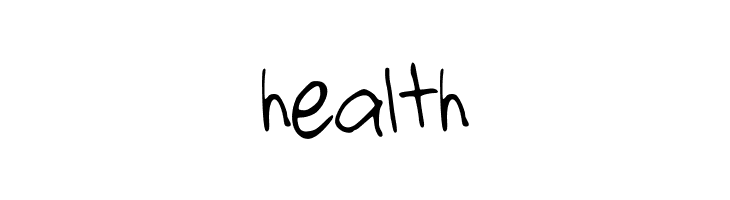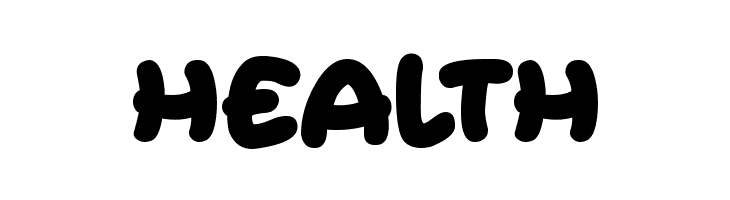
A bold, whimsical font with bee illustrations atop each character.
A playful set of dingbat symbols themed around scrapbooking and crafting tools.
( Austie Bost Fonts - Austin Owens - austiebost.com )
A decorative font with playful Christmas-themed doodles.
( Bailey Pink )
A playful, handwritten font with a casual and whimsical style.
( Cat Neligan )
A festive, decorative font featuring Christmas-themed elements within each character.
( Chequered Ink - chequered.ink/ )
A playful, hand-drawn font with rounded edges and a whimsical style.
( Darrell Flood )
A bold, playful font with rounded, bubbly characters.
( Darrell Flood )
A playful, dotted font with bold, rounded characters perfect for festive designs.